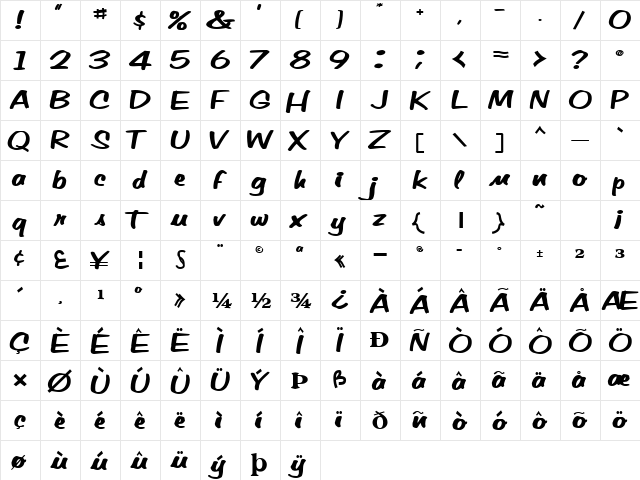
VoCab54 Bold
Design Context for VoCab54 Typeface
VoCab54 takes a measured approach to typography — its balanced proportions and neutral character make it a reliable workhorse for both digital and print work. The heavy weight commands attention and anchors typographic hierarchies.
Pro Tip: Use VoCab54 in both headline and body roles to test its range before committing to a single application.